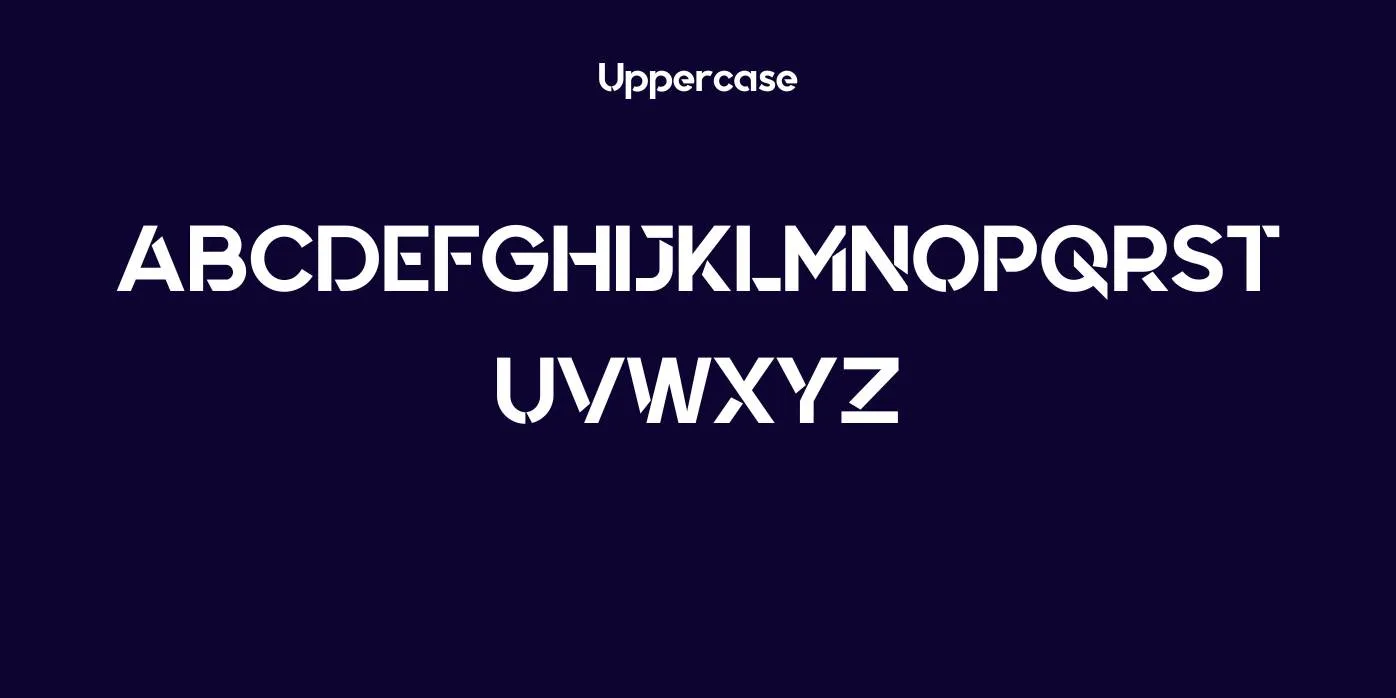
Quantify Font
Sentype is the designer for this typeface. Quantify Font is a sans-serif type of font. This typeface has bold, braked, and classical characters. These characters have an amazing look.
This typeface has stunning features on the basis of the similarities and differences. This typeface can be paired with this typeface. There are many tools that support this typeface but the online generator tool for this typeface is stunning one tool. This tool provides you with a section in which you will put text in some other typeface.